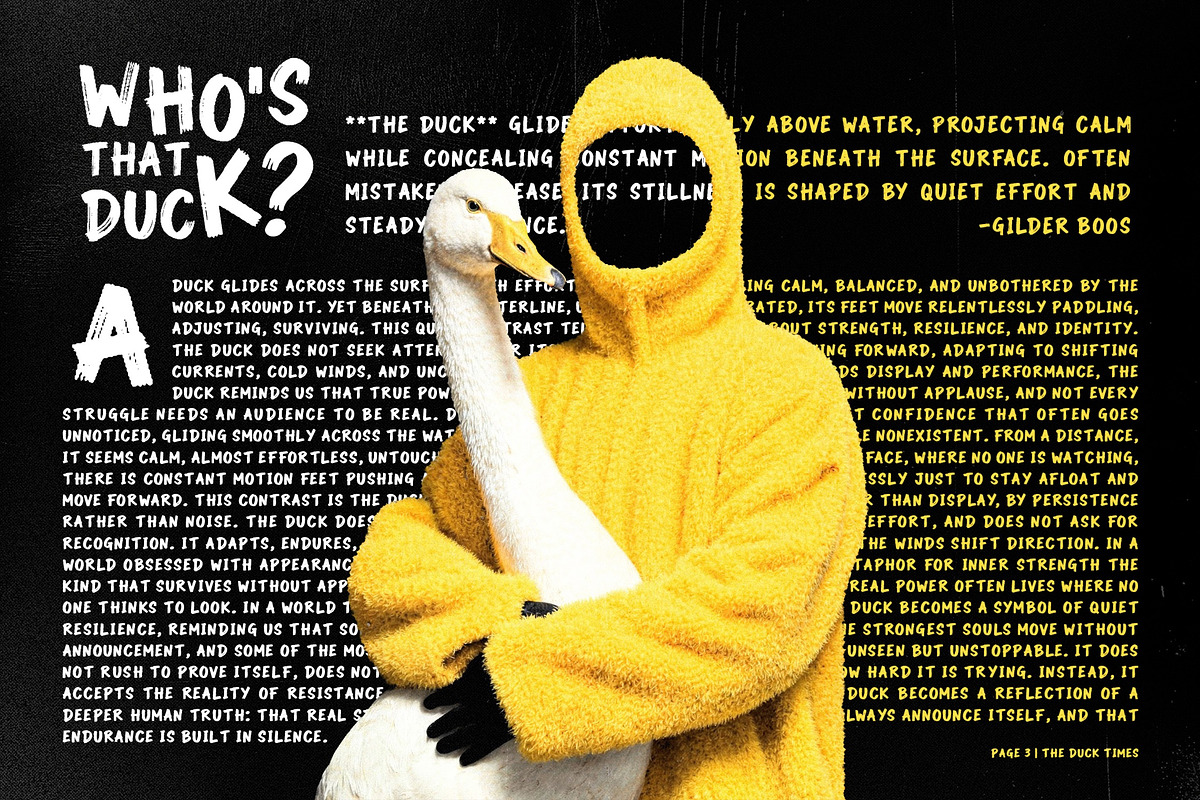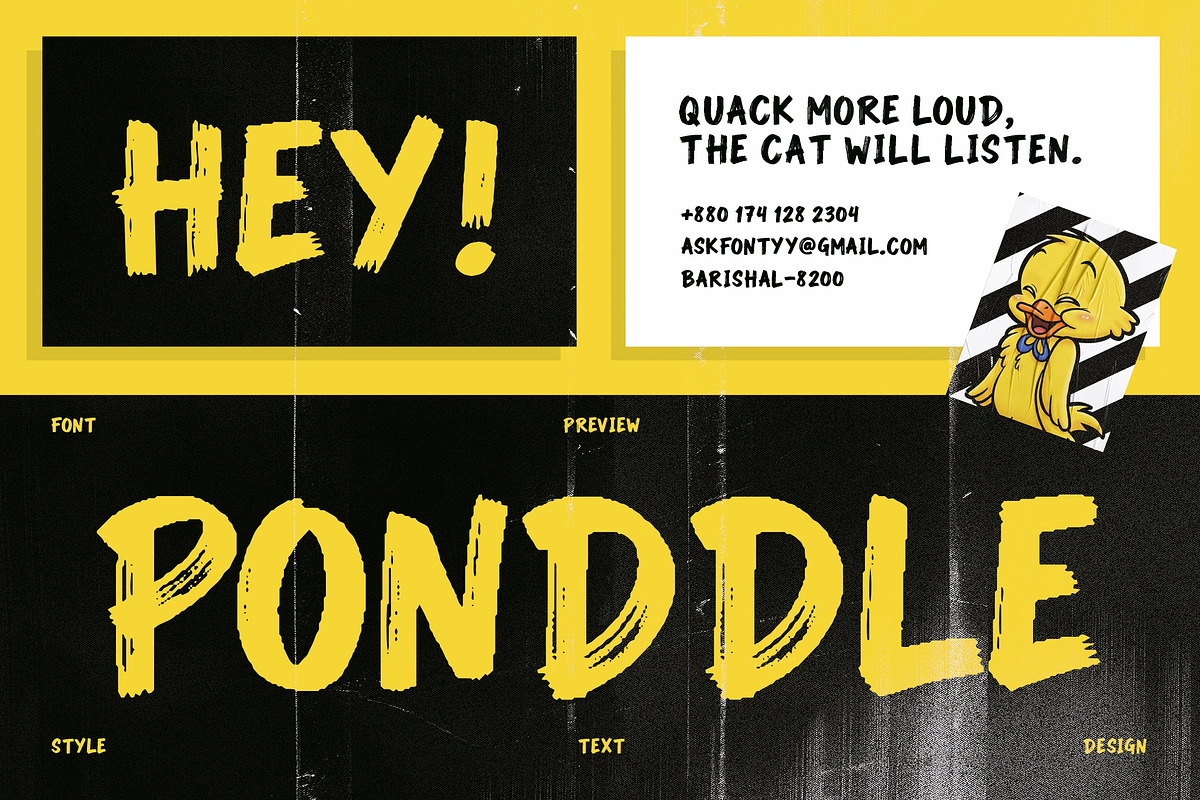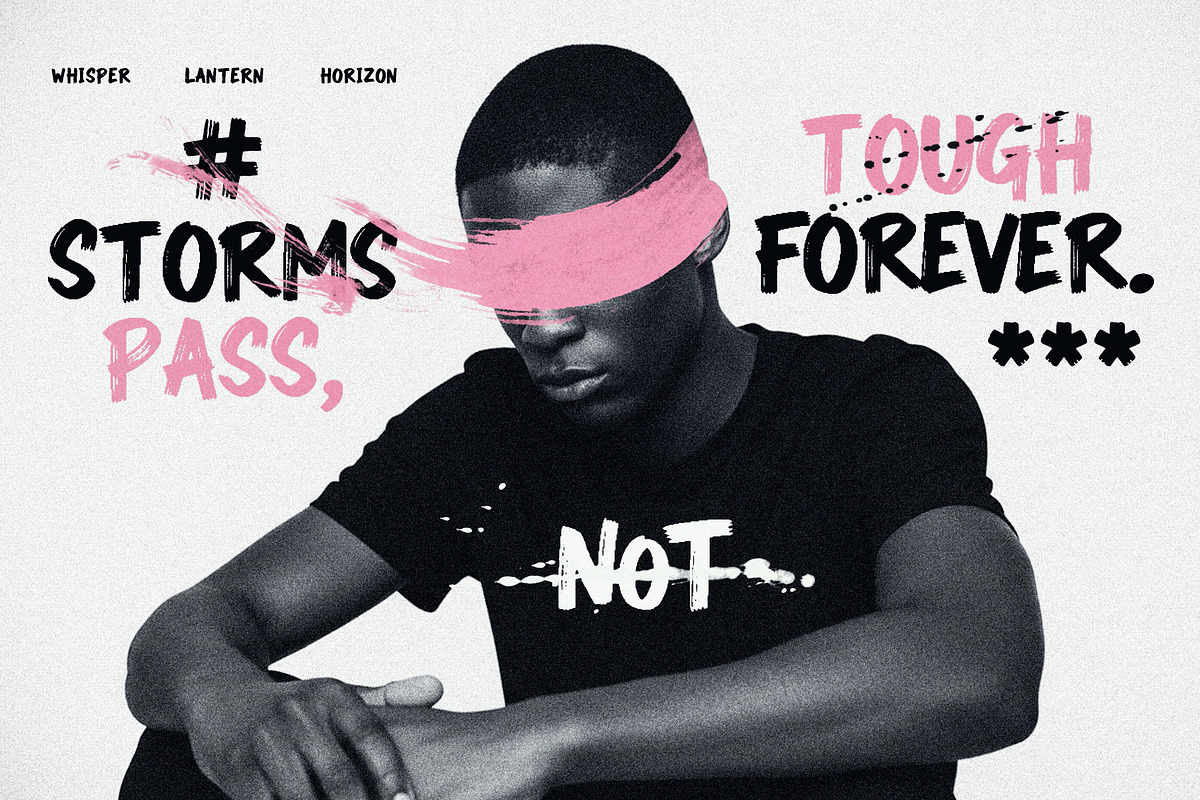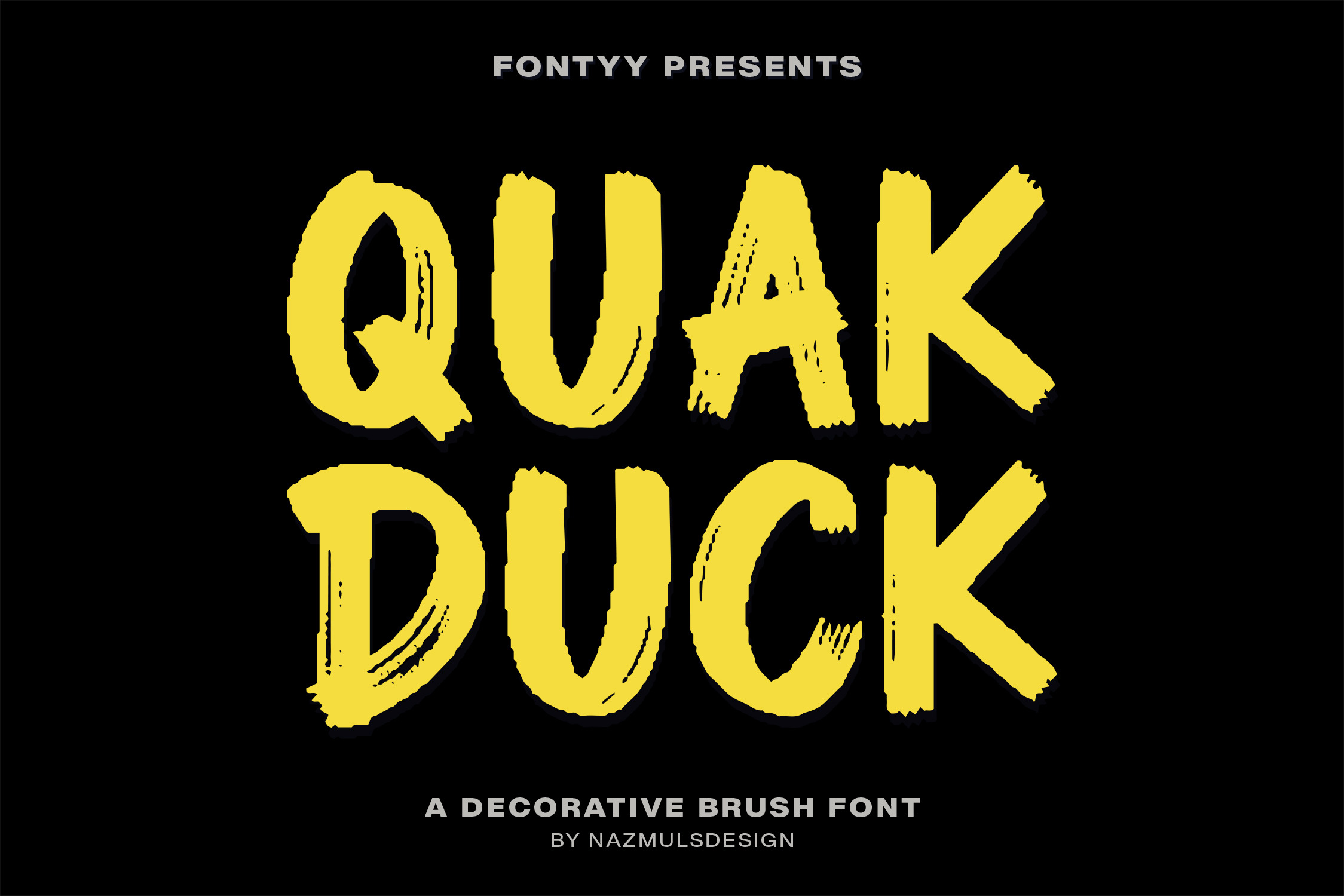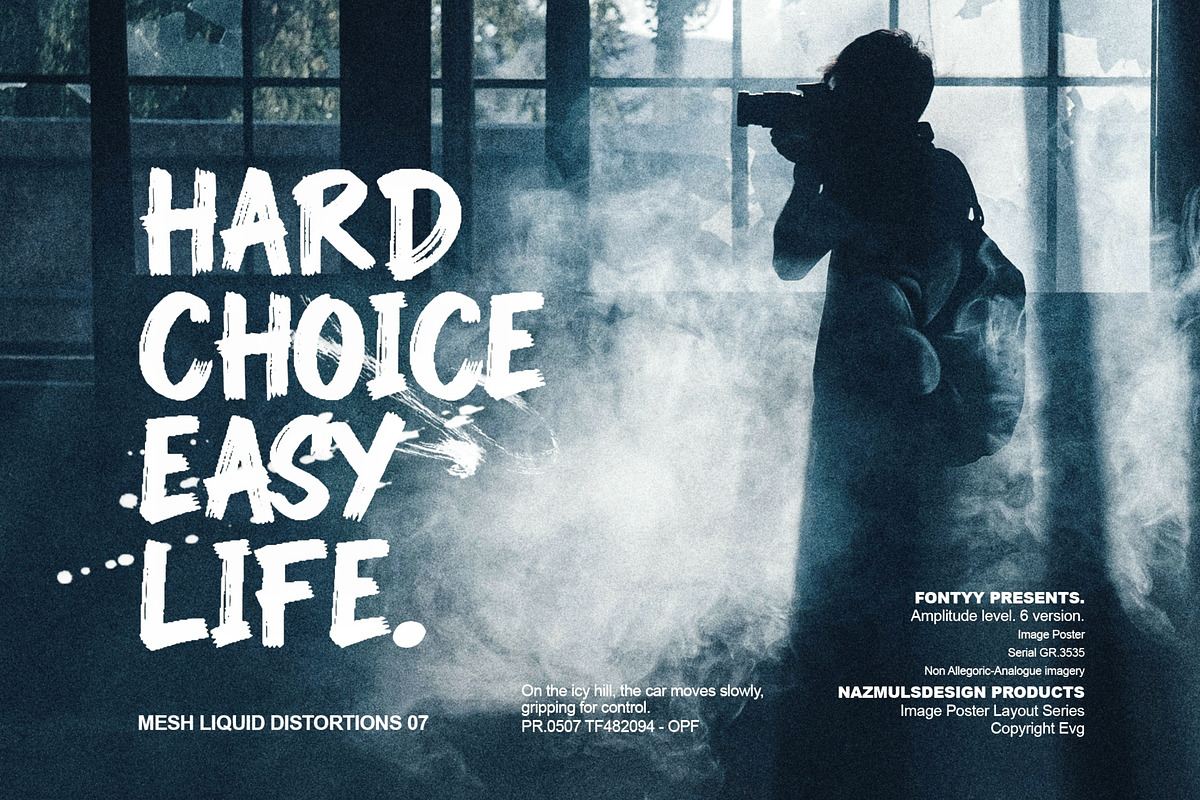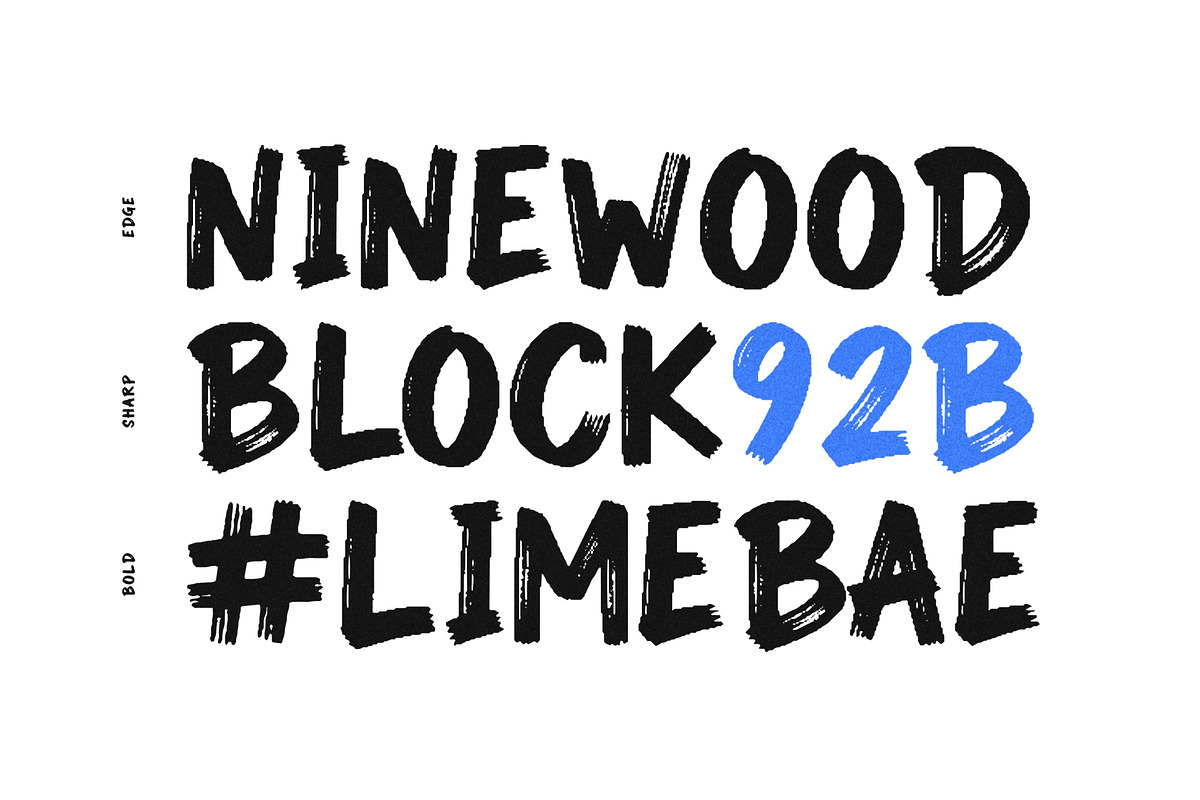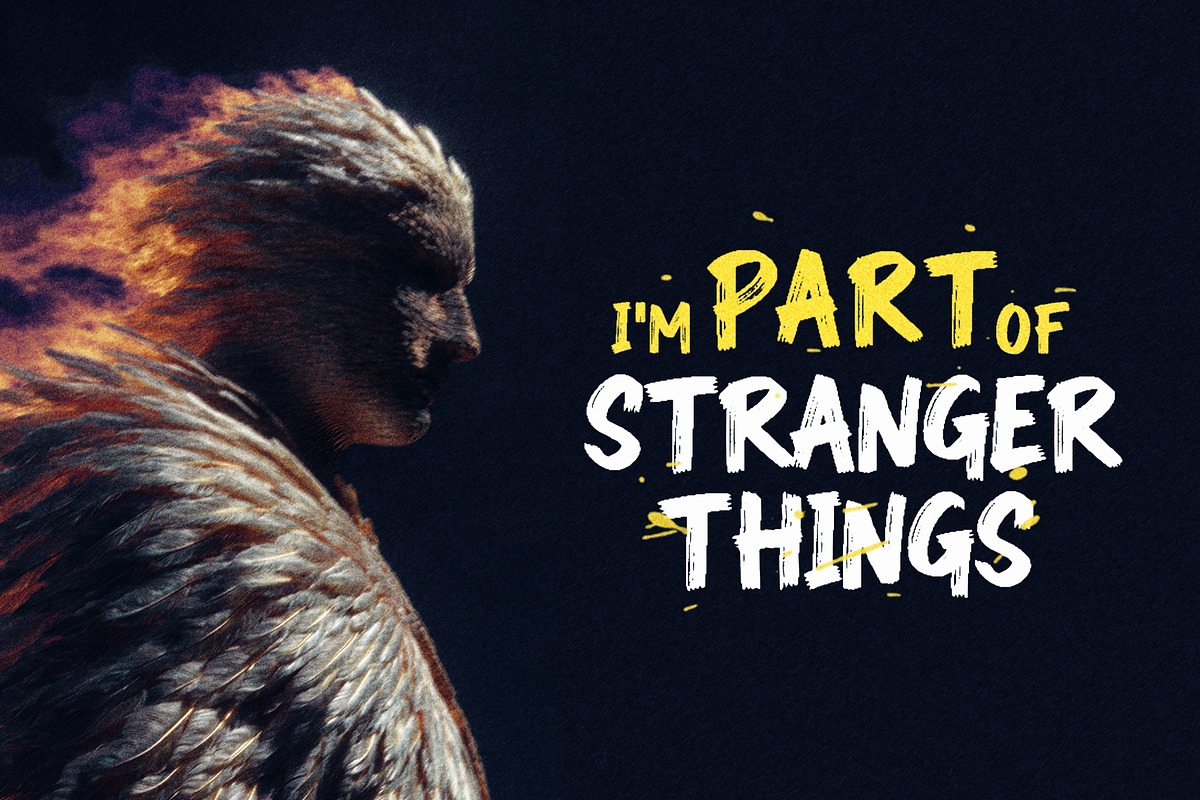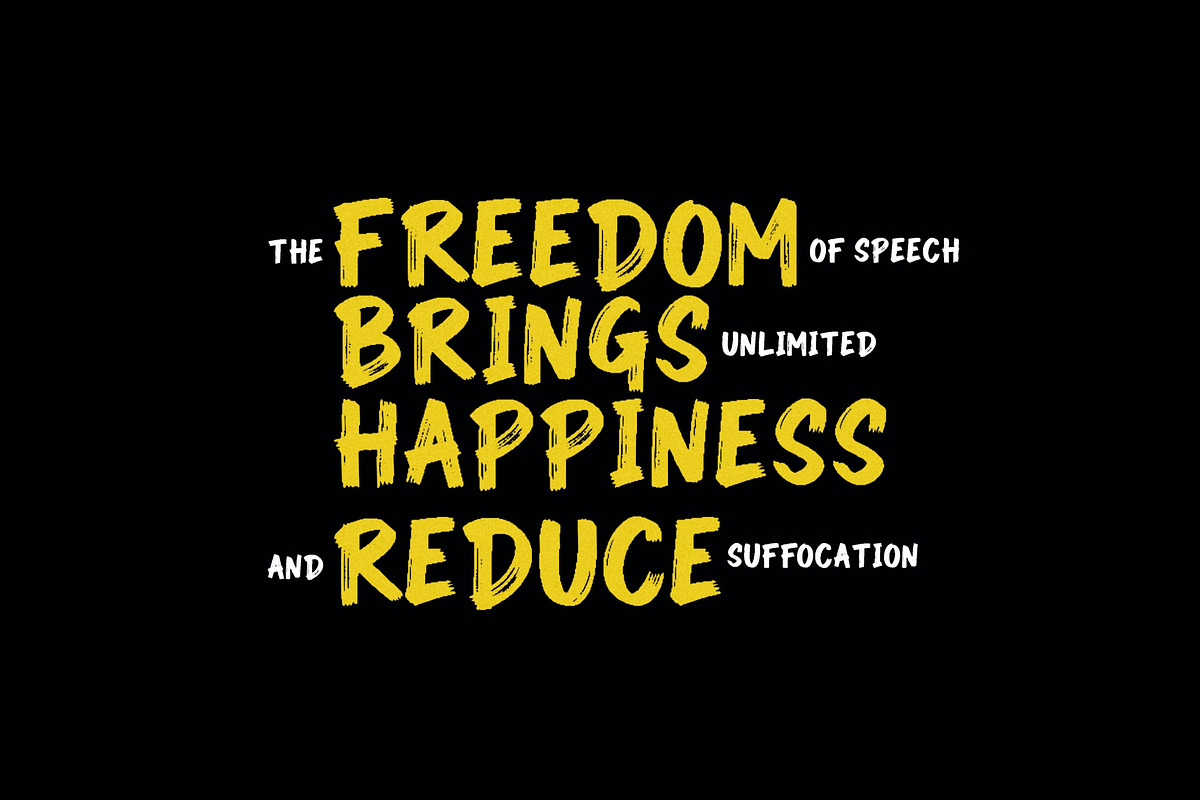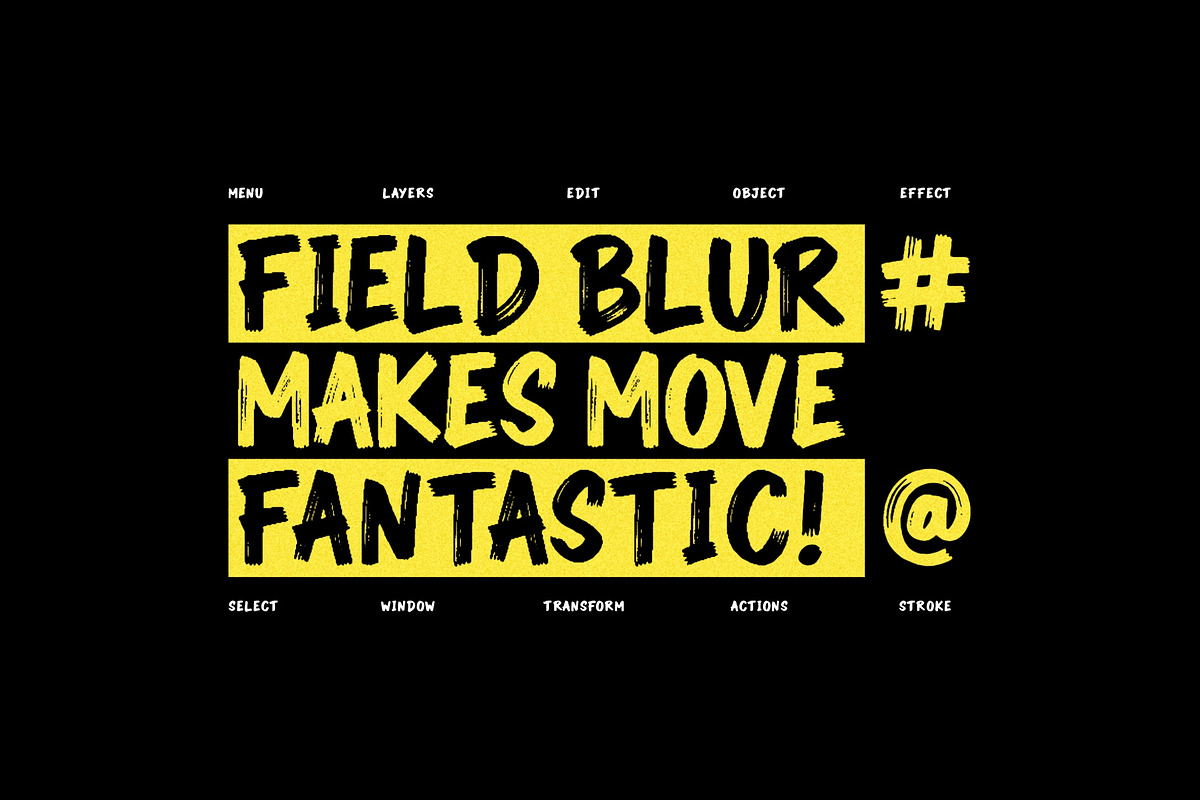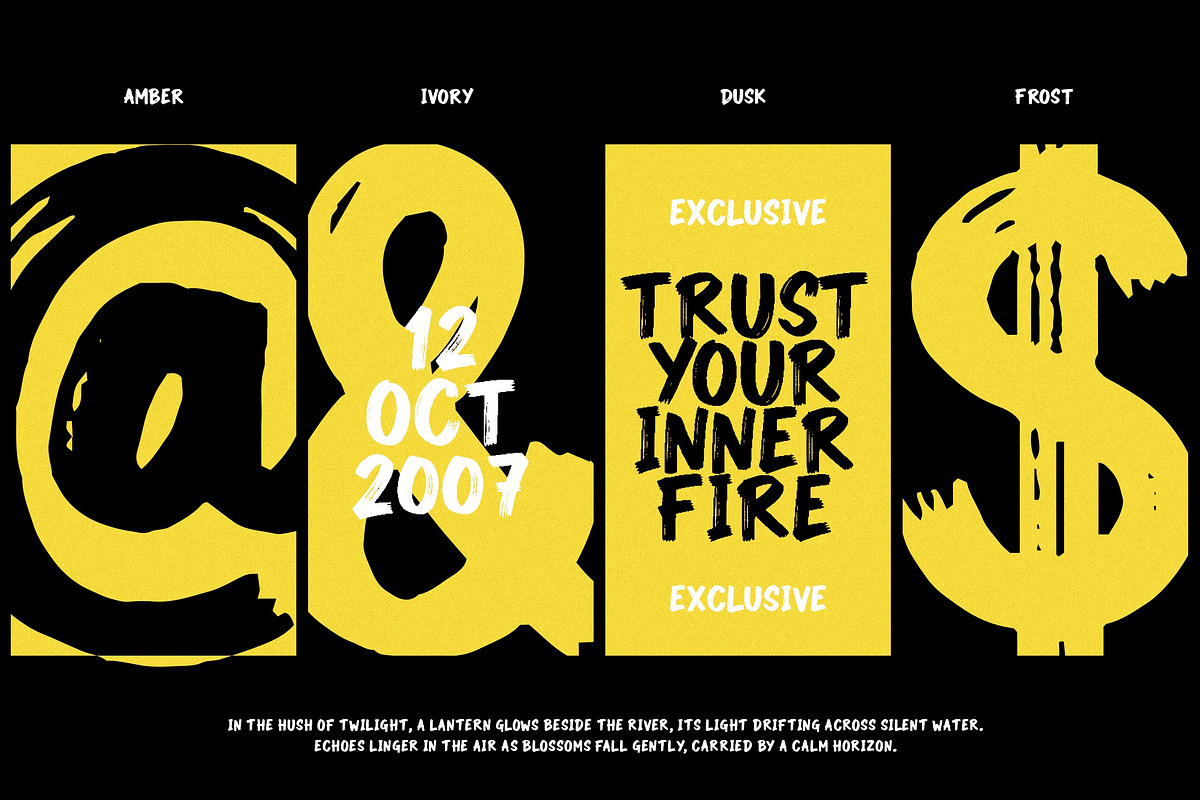
QuakDuck - Brush Font
QuakDuck is a bold and expressive decorative brush font inspired by raw brush strokes, street art energy, and playful rebellion. Each letter is carefully hand-crafted with rough edges and organic texture, creating a loud, confident, and rebellious typographic voice.
Designed to grab attention instantly, QuakDuck is perfect for posters, album covers, branding, logos, labels, packaging, apparel, and social media graphics. Its imperfect brush style adds movement, attitude, and artistic charm—making every word feel alive, dynamic, and full of personality.